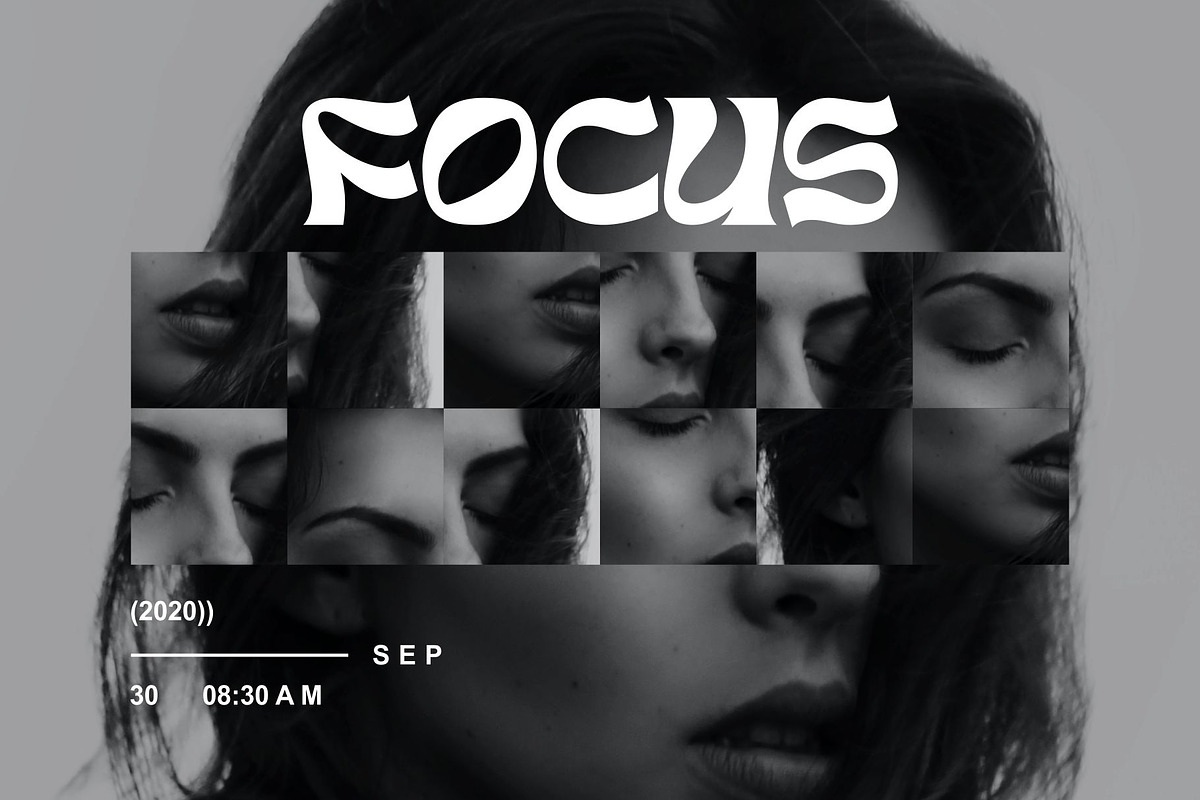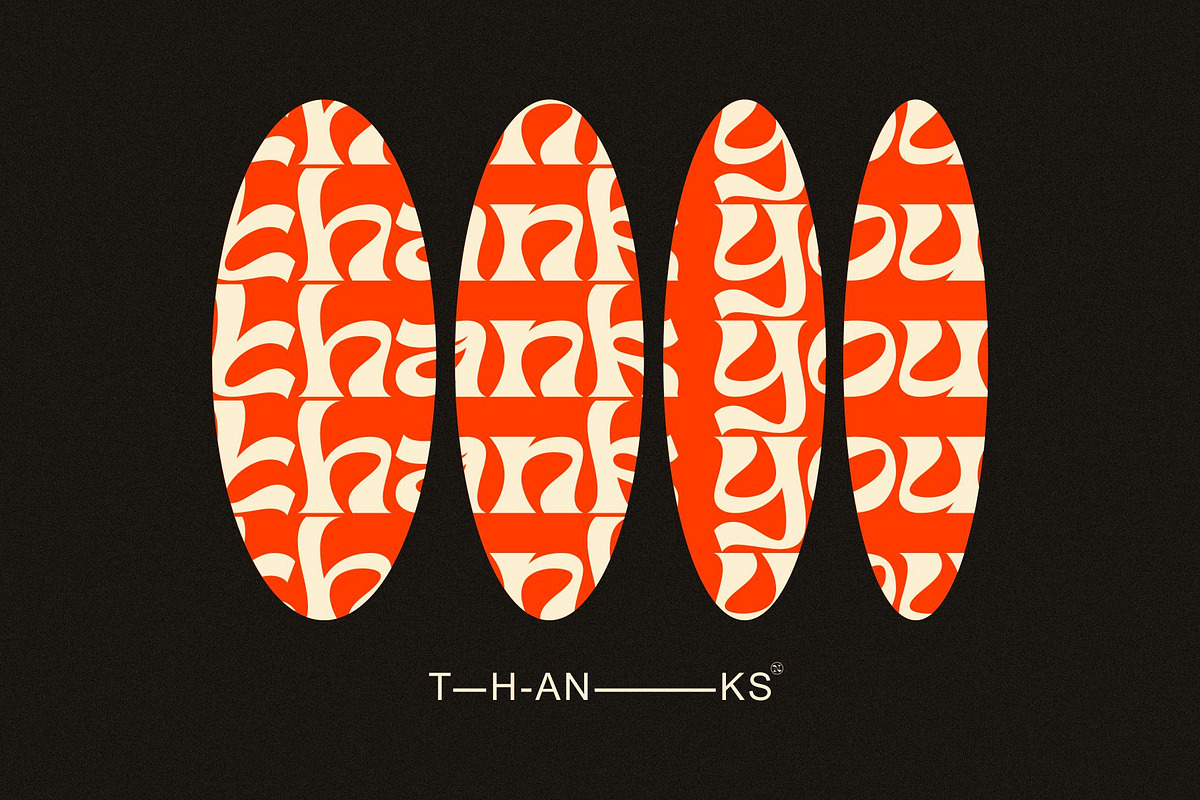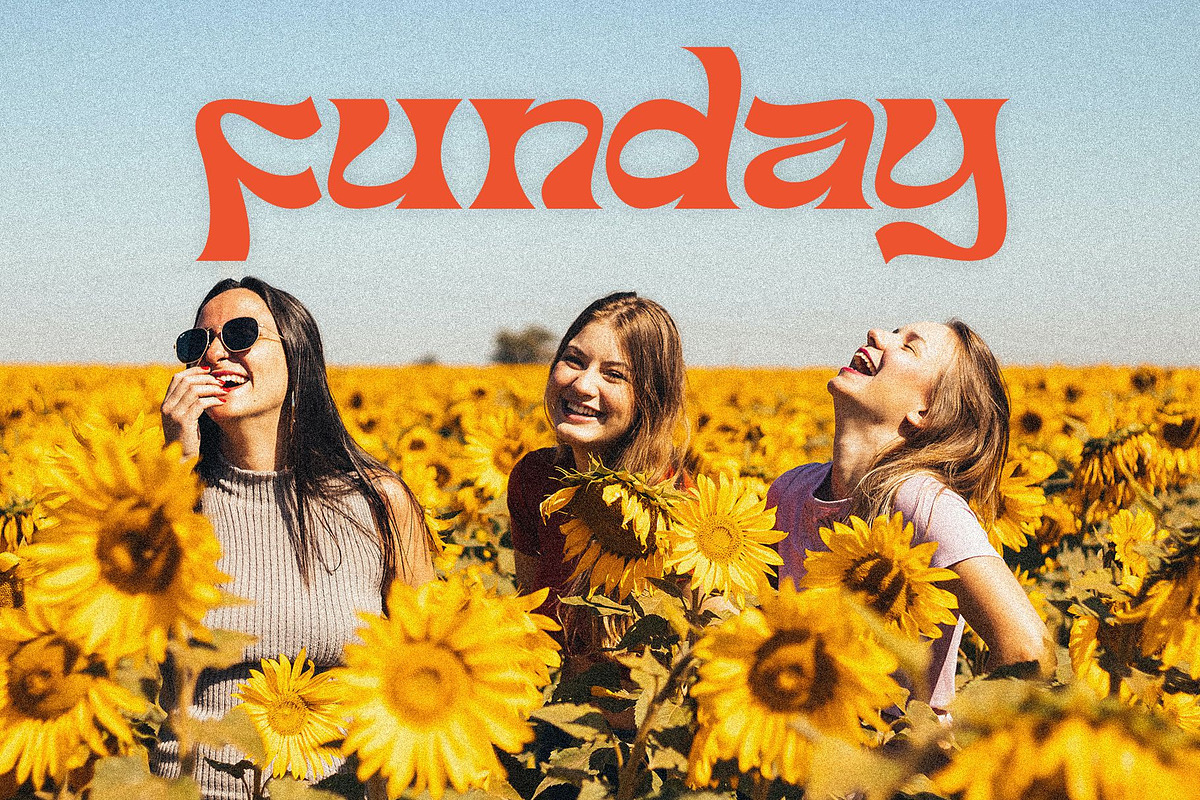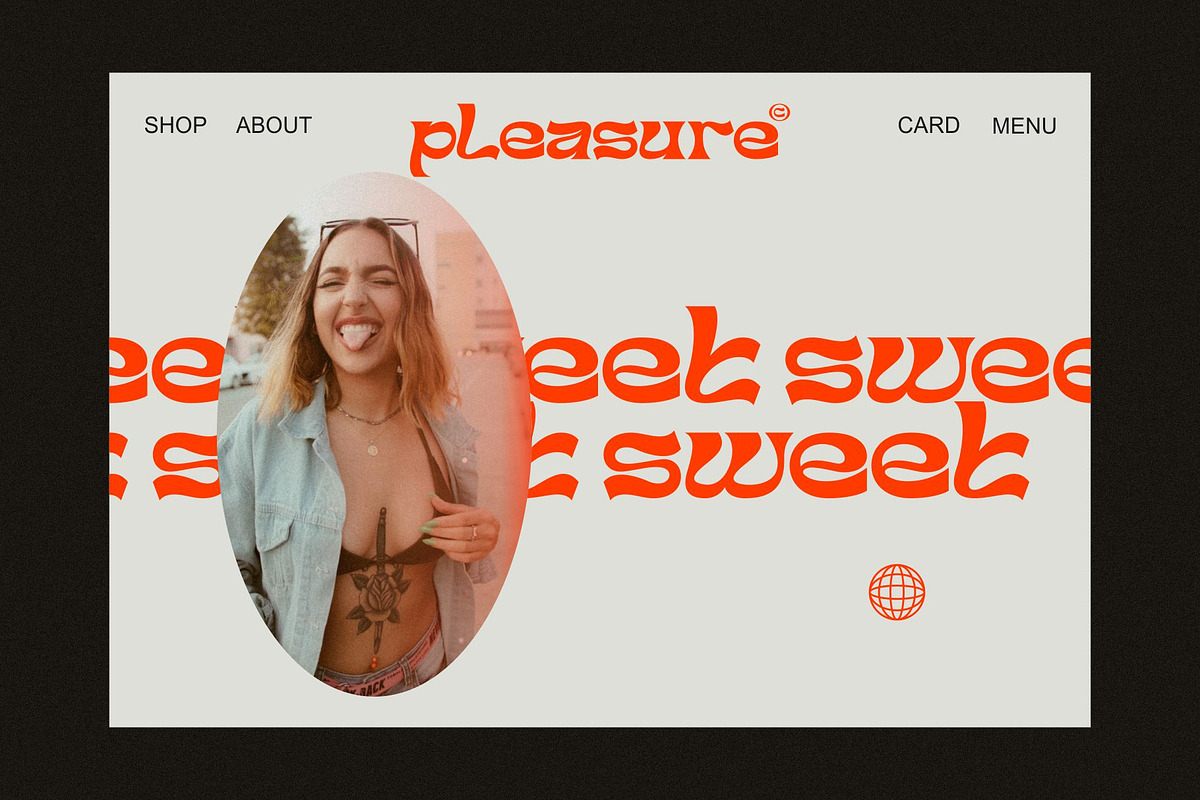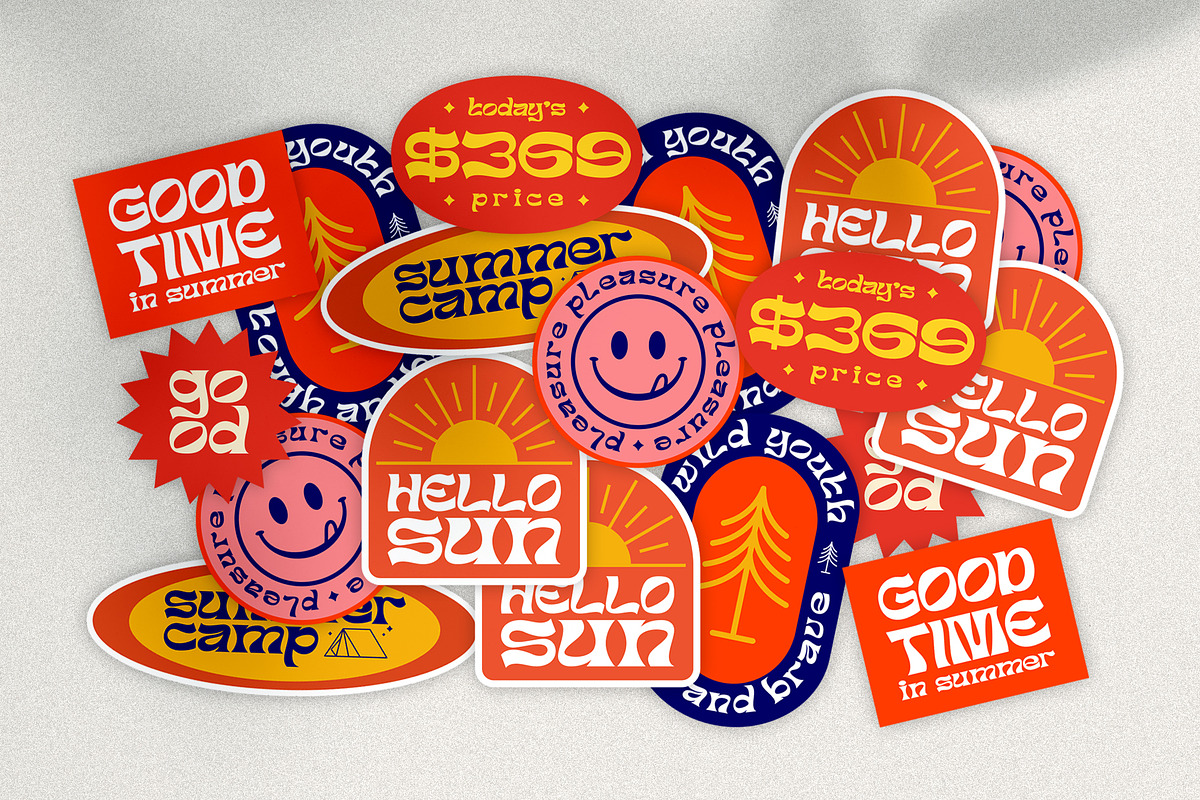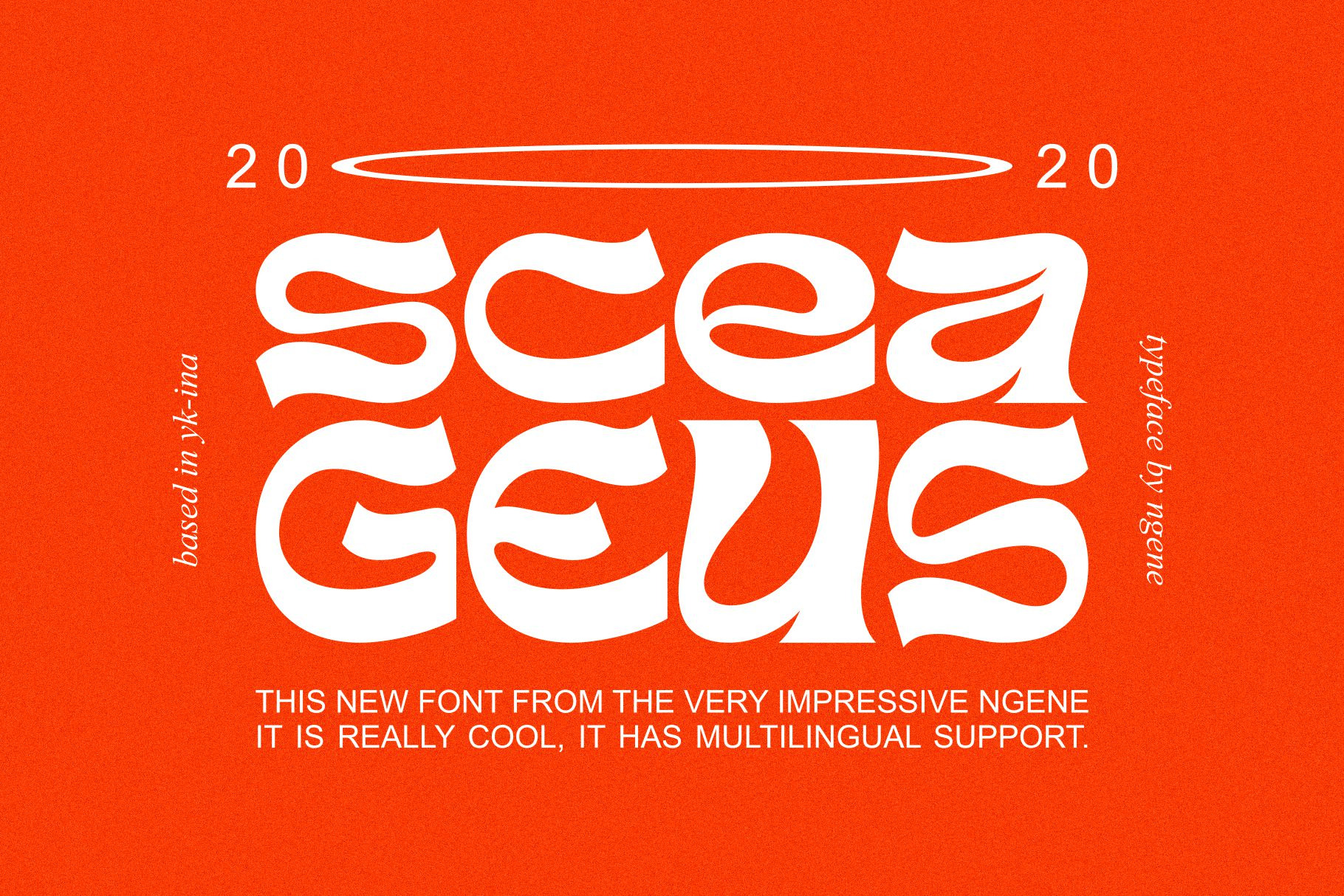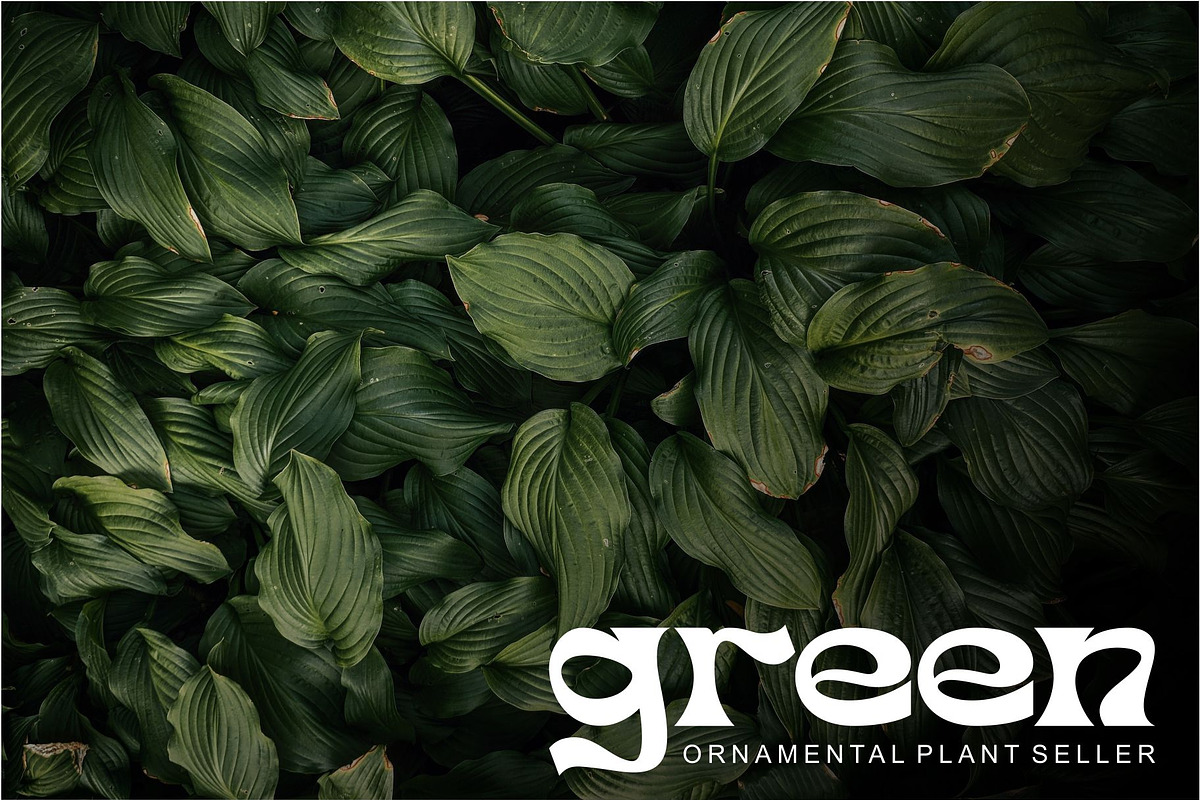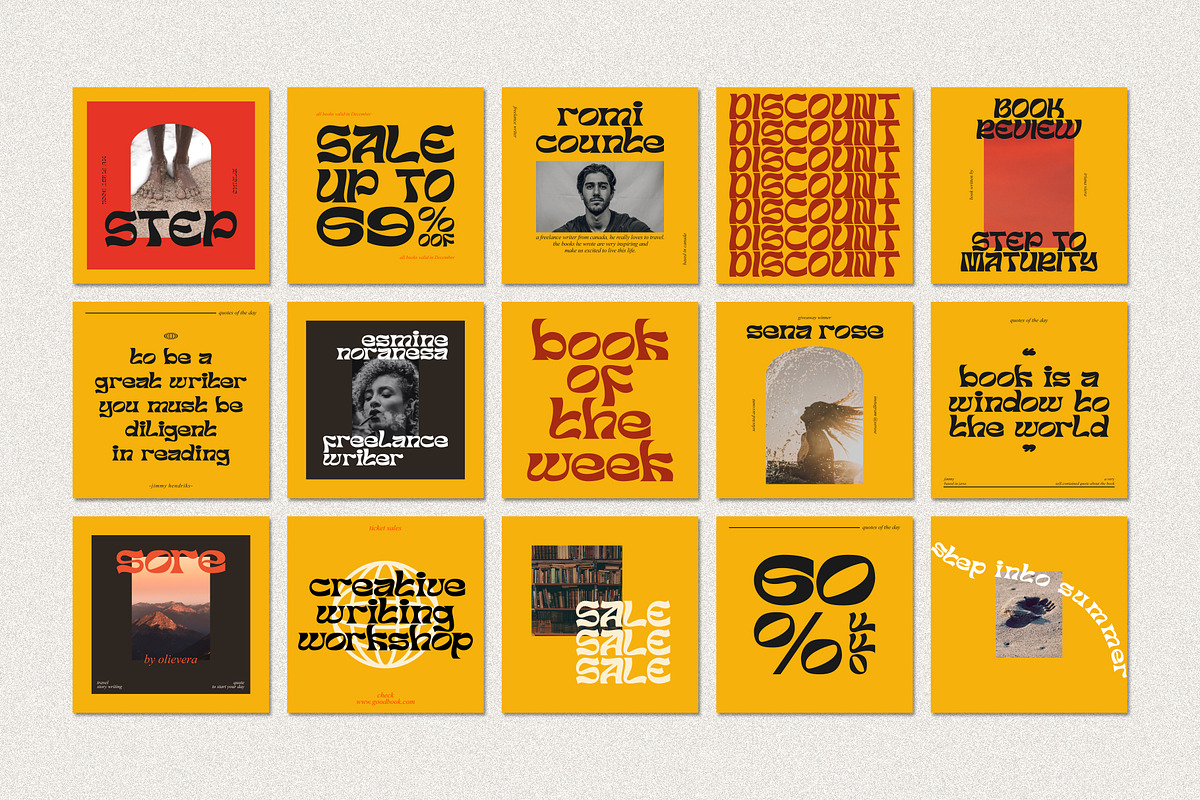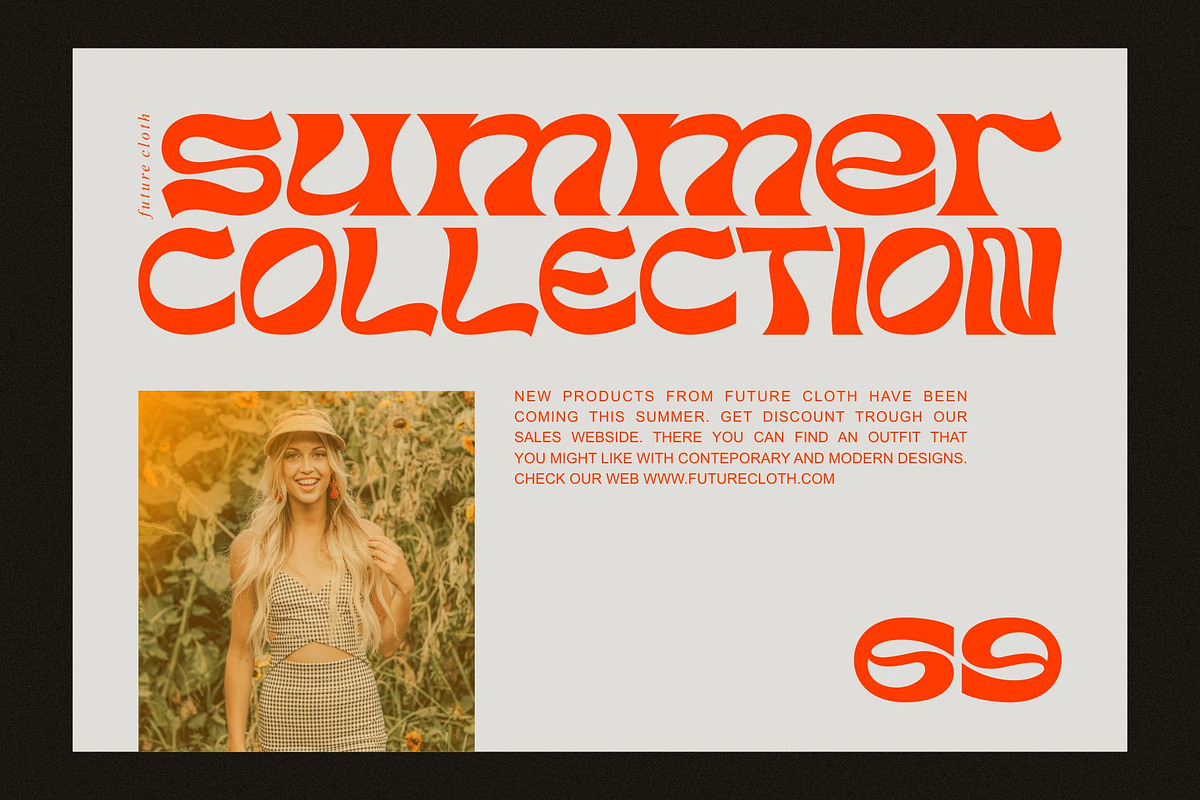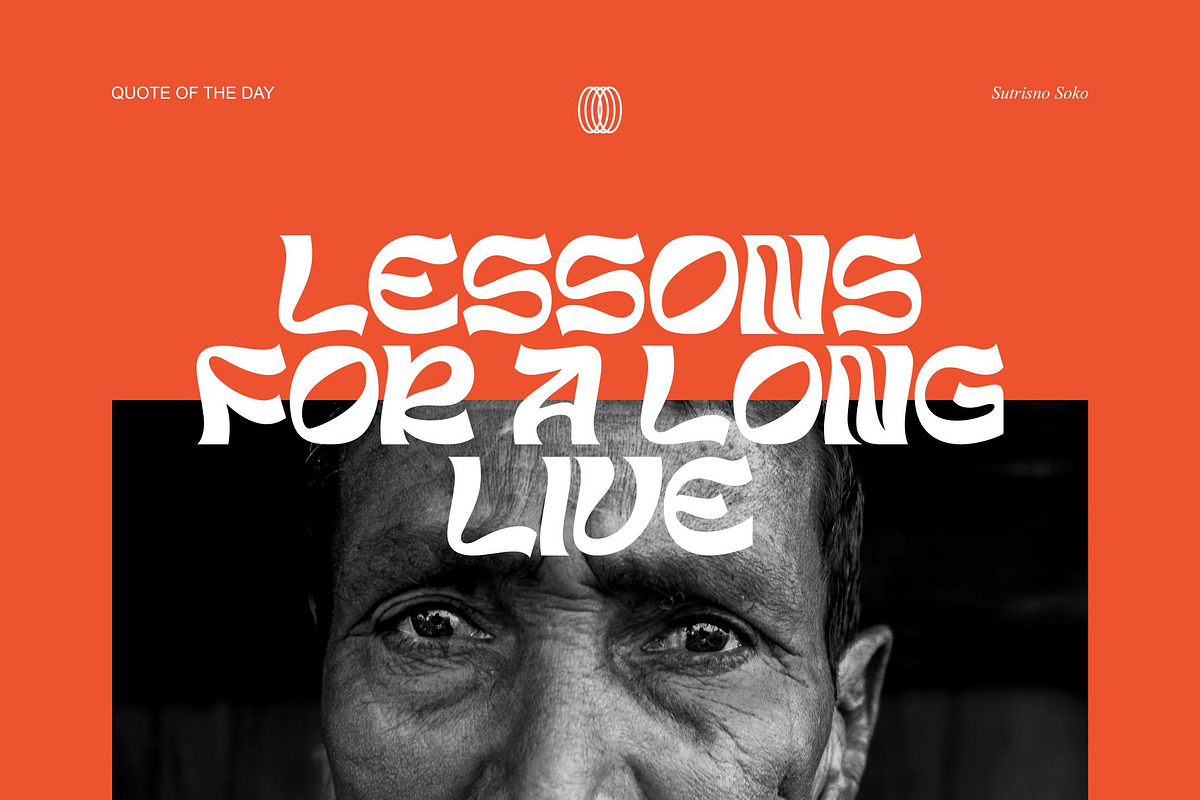
Sceageus Typeface
INTRODUCING THE TYPES OF SCEAGEUS
This Sceageus comes with a modern and contemporary touch in it. This font is great for your design projects such as logos, magazines, web design, posters, invitation cards, packaging, badges, types of logos, clothing designs, labels and more.
This font is so cool that it makes it easy for you to beautify the writing you need. Sceageus also supports multilingualism.